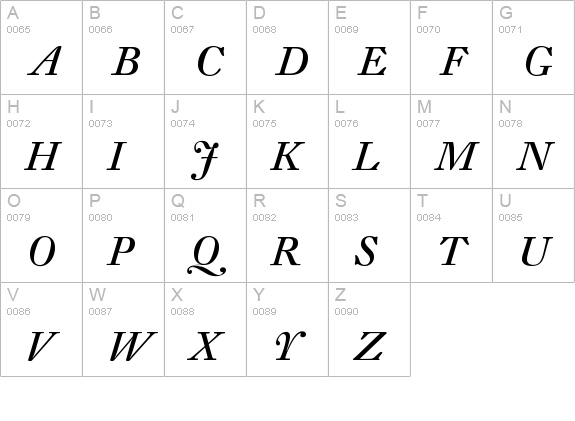
DTLFleischmannST-Italic is a distinctive, italic variant in the DTLFleischmannST typeface family \xE2\x80\x94 well suited to design and typography projects.
The DTLFleischmannST-Italic font embodies elegance and sophistication with its graceful italics and delicate curves. This stylish typeface exudes a timeless charm that is perfect for adding a touch of class to any design project. Whether you're creating invitations, logos, or editorial layouts, this font will elevate your work to new heights. What's even better is that DTLFleischmannST-Italic is available for free download at FontsMarket.com. Now you can access this exquisite font without any cost, making it a valuable addition to your collection of typefaces. Don't miss out on the opportunity to enhance your designs with the beauty of DTLFleischmannST-Italic – download it today and let your creativity shine!